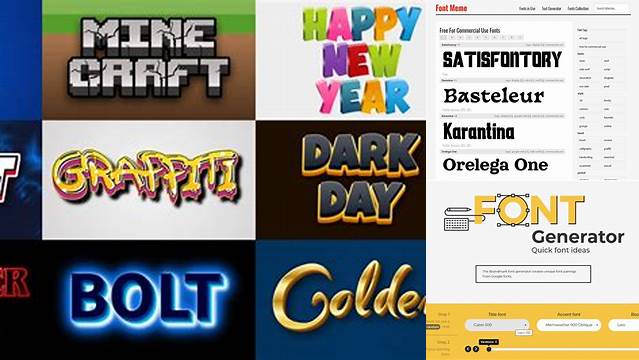
Free Online Font Style Generator.
Welcome, everyone! Are you looking for a free online font style generator? You've come to the right place! In this article, we'll dive deep into the wonderful world of text customization. We'll explore how you can use these amazing tools to transform your ordinary text into something extraordinary. Get ready to discover a plethora of styles, from elegant and sophisticated to bold and playful. Let's get started on this exciting journey of typography and creative expression! Remember, guys, the best part is that these generators are completely free and accessible, so you can experiment as much as you want without any limitations. So, grab your digital canvas and let's paint some words!
H2: Exploring the World of Free Font Style Generators
So, what exactly is a free font style generator? Well, imagine a digital magic wand that can instantly transform your plain text into visually stunning masterpieces. These online tools allow you to apply a wide range of styles to your text, including different fonts, sizes, colors, and effects. Think of it as a text makeover, giving your words a unique personality. The best part? They are completely free to use! You don't need to download any software or have any special design skills. Just type in your text, choose a style, and voila! You've got a beautifully styled text ready to be used for anything you can imagine, from social media posts and website headings to creative projects and personal designs. There's no limit to how much you can play around and experiment to find the perfect style that matches your needs! Now, aren't these tools simply amazing? They are a game-changer for anyone who wants to elevate their text and make it stand out from the crowd. With a bit of imagination, you can create captivating visual content that will make people stop and take notice. You're free to generate any style, so don't hesitate to experiment and have fun.
H3: Benefits of Using Free Font Style Generators
There are a ton of benefits to using free font style generators. First and foremost, they save you time and money. You don't have to spend hours manually formatting text or hire expensive designers. With these tools, you can achieve professional-looking results in a matter of seconds. Second, they offer a vast array of styles and options. You're not limited to basic fonts; you can explore a whole universe of different looks. These are great if you want to keep your design fresh. Third, they're incredibly easy to use. No technical expertise is required, and the interface is usually very intuitive. You can jump in and start creating immediately. Fourth, they are super versatile. You can use the styled text for a wide variety of applications, including social media graphics, blog posts, website banners, email marketing, and more. The sky's the limit! And, last but not least, they encourage creativity. By experimenting with different styles, you can discover new and exciting ways to express yourself and make your content more engaging. Remember, the more you play around with styles, the more creative you'll become. These tools are designed to empower you and unleash your inner designer. Have you imagined the possibilities? So, what are you waiting for? Go and explore the incredible world of text customization! You won't regret it.
H2: Types of Font Styles You Can Generate Online
When it comes to free online font style generators, the possibilities are nearly endless! Let's explore some of the most popular and creative font styles you can generate online. First, we have the classic and elegant serif fonts, perfect for conveying a sense of sophistication and formality. These are often used in headings, titles, and formal documents. Then there are the bold and impactful sans-serif fonts, which are modern and easy to read, ideal for websites, digital content, and headlines. Next, we have the playful and expressive script fonts, which mimic handwriting, offering a touch of personality and creativity, perfect for invitations or social media posts. We can't forget the unique and artistic display fonts, which are great for grabbing attention. They are often used in logos, posters, and eye-catching visuals. And of course, we have the fun and quirky novelty fonts, which add a touch of playfulness and whimsy to your text. These are perfect for creative projects and lighthearted designs. Each of these font styles can be further customized with different colors, sizes, and effects. This allows you to fine-tune your text and create exactly the look you want. So, whether you're aiming for elegance, impact, or playfulness, a free online font style generator can help you achieve your vision. So, go ahead and play around with them.
H3: Serif Font Styles and Their Applications
Serif font styles are the ones with those little decorative strokes at the end of each letter, and they're all about classic elegance. When you use a free online font style generator to apply serif fonts, you're adding a touch of sophistication to your text. Think of it as dressing up your words! Serif fonts are excellent for headings and titles because they command attention without being overpowering. They are also commonly used in body text, where they aid in readability, especially in printed materials. They give a more traditional and polished look, perfect for projects like brochures, reports, and formal documents. You can find a wide range of serif fonts online, from the timeless Times New Roman to the more modern and stylish Georgia. Some are delicate, others are bold, and some are quirky. Using a generator, you can see how your text will look in different serif styles before deciding on the perfect one. Experiment with different sizes, colors, and effects to customize the look even further. This lets you create text that perfectly matches your project's tone and style. The use of serif fonts gives a feeling of trustworthiness, which is why they are often used in professional settings. The best part is that the generator is free to use. So, go ahead and explore the world of serif fonts and transform your text into something truly elegant.
H3: Sans-Serif Font Styles for Modern Designs
Sans-serif font styles are the sleek, modern fonts that don't have the little strokes at the end of the letters. They are the go-to choice for contemporary designs. A free online font style generator offers a wide variety of sans-serif fonts, each with its unique character. These fonts are fantastic for digital platforms because they are clean, clear, and easy to read on screens. They’re perfect for websites, social media graphics, and presentations where readability is key. They give a minimalist and modern look that goes well with many design styles. Sans-serif fonts are also very versatile. Whether you're creating a website header, a social media post, or an advertisement, these fonts will look great. They come in various weights and styles, from thin and elegant to bold and impactful, so you can find the perfect one for your needs. You can customize them with different colors, sizes, and effects in the generator to make sure they fit perfectly into your design. They are simple but stylish, making them ideal for conveying a modern message. Experimenting with different sans-serif fonts through a generator allows you to discover the perfect one to make your text pop and grab your audience's attention. You'll find yourself using these fonts a lot because they fit with so many design trends. Go ahead and explore the world of sans-serif fonts! They're a must-have in every designer's toolkit, and the best part is that these generators are free!
H3: Script Font Styles for a Personal Touch
If you are aiming to create a personal touch, script font styles are the perfect choice. These fonts mimic handwriting and add a touch of elegance, creativity, and personalization to your text. With a free online font style generator, you can find various script fonts, from elegant and flowing to bold and expressive. These fonts are ideal for projects where you want to create a sense of intimacy and warmth. They're perfect for invitations, greeting cards, and any design needing a human touch. The graceful curves and unique strokes of script fonts make them stand out and grab attention. You can easily generate and customize script fonts using a generator, experimenting with different colors, sizes, and effects to create your unique style. These tools allow you to preview your text in different script fonts instantly. They are great for ensuring that your text looks precisely as you imagine before you use it. This is great for finding the perfect look for your project. Script fonts make your text memorable and are excellent for adding a touch of personality to your designs. Whether you want a romantic, artistic, or playful feel, there’s a script font that will fit the bill. Embrace the beauty of handwritten text and transform your designs! They're a fantastic way to express yourself and create unique visuals. The ease of use and versatility make these tools a valuable resource for anyone looking to personalize their text. Get out there and get creative!
H3: Display Font Styles for Eye-Catching Designs
Display font styles are designed to grab attention and make a statement. With a free online font style generator, you can explore many display fonts, which are perfect for headlines, posters, and other designs where you want to make a strong visual impact. These fonts come in a variety of styles, from bold and modern to quirky and artistic. Display fonts are not just about making your text visible; they're about creating a visual experience that enhances your message. You can use display fonts to set a specific tone or mood. They can be used to convey excitement, sophistication, or even humor. By playing around with display fonts, you can find the perfect one that expresses your message. The best thing is that the free online generator lets you preview your text in different styles. You can customize these fonts by adjusting their size, color, and effects until you get the exact look you want. Display fonts are an excellent tool for creating visually stunning designs that grab attention. They are a creative way to add personality and flair to your designs. So, go ahead and start experimenting with display fonts, and see how they can transform your visuals. It's a fantastic way to make your content pop and leave a lasting impression.
H3: Novelty Font Styles for a Fun and Playful Look
Need a fun and playful look? Novelty font styles are the perfect choice. These fonts are designed to bring a touch of creativity and whimsy to your text. With a free online font style generator, you can access a wide range of novelty fonts, from cartoonish and bubbly to themed fonts. These fonts are great for projects where you want to add a touch of humor or lightheartedness. They're perfect for children's content, invitations, and creative projects. They bring character and make your text more engaging and memorable. The variety of styles available allows you to find the perfect font to fit your specific needs. You can customize these fonts with different colors, sizes, and effects, making them your own. This gives you total control over your design. A free online generator makes it easy to experiment with different novelty fonts and visualize how they'll look. Experimenting will help you find the perfect match for your project. So, if you're looking to add some fun to your designs, novelty fonts are the way to go. They're an excellent way to create visually appealing and memorable content. Have fun creating with novelty fonts! They're an incredible way to express your creativity and bring a smile to your audience.
H3: Finding the Right Free Font Style Generator Online
Finding the right free font style generator online is the first step towards transforming your text. There are many options, so it's essential to choose one that fits your needs. Start by searching online for